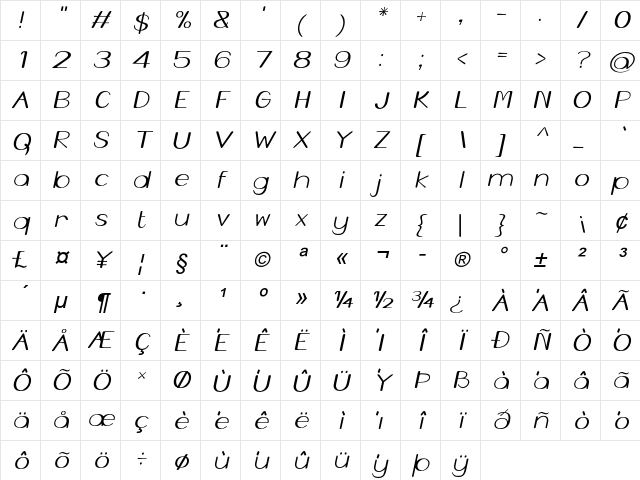
Tweedle Italic
Design Context for Tweedle
Tweedle is a composed and adaptable typeface that performs quietly and consistently across a wide range of design contexts. The slanted form adds forward momentum and visual energy.
Pro Tip: Use Tweedle for emphasis, pull quotes, and subheadings where its slanted energy can add rhythm to the layout.